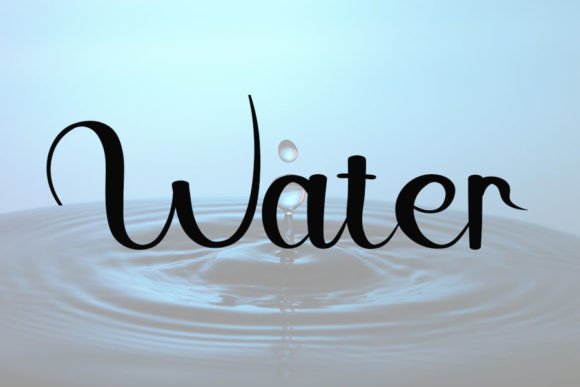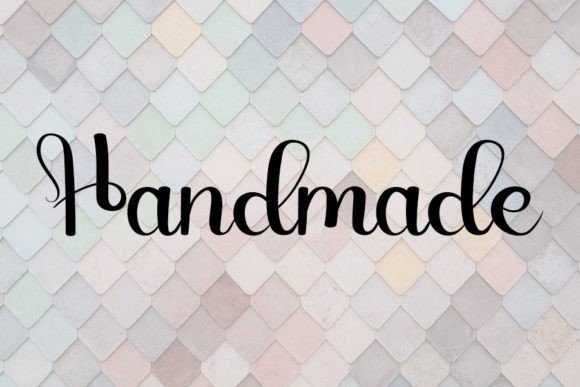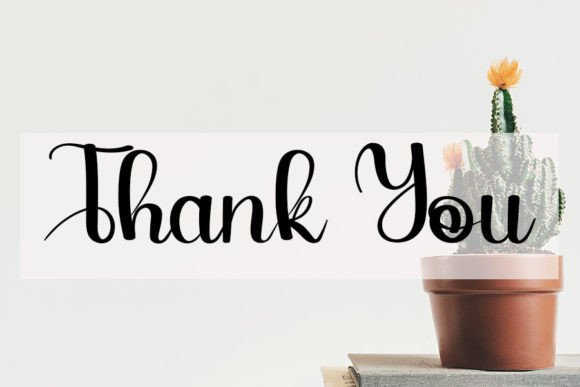
Bubble Font
About Bubble Font
“Bubble” is a delightful handwritten font that combines neatness with elegance, creating a harmonious and timeless style. This font is the perfect choice for a wide range of design projects, and its distinct charm is bound to captivate your creative senses.
The appeal of “Bubble” lies in its ability to strike a balance between neatness and beauty. Each character is meticulously crafted to exude an air of refinement and sophistication, making it ideal for projects where you seek to convey a touch of elegance. Imagine using “Bubble” for a wedding invitation, where the font’s distinct and timeless style enhances the romantic atmosphere of the event.
For various design applications, including quotes, greeting cards, banners, and more, “Bubble” lends a sense of grace and beauty that elevates your content. It has a universal quality that can enhance any project and make it truly special.
Furthermore, “Bubble” is highly versatile and readable, ensuring that your text remains clear and easily legible, even in intricate or decorative designs. This feature is especially valuable when conveying important messages or information in your projects.
In summary, “Bubble” is more than just a font; it’s a design asset that possesses a distinctive and enduring appeal. Its elegant yet neat handwritten style makes it suitable for a wide range of applications, and its ability to add a touch of timeless beauty sets it apart. With “Bubble” at your disposal, your design projects will exude a sense of sophistication and charm that leaves a lasting impression on your audience.